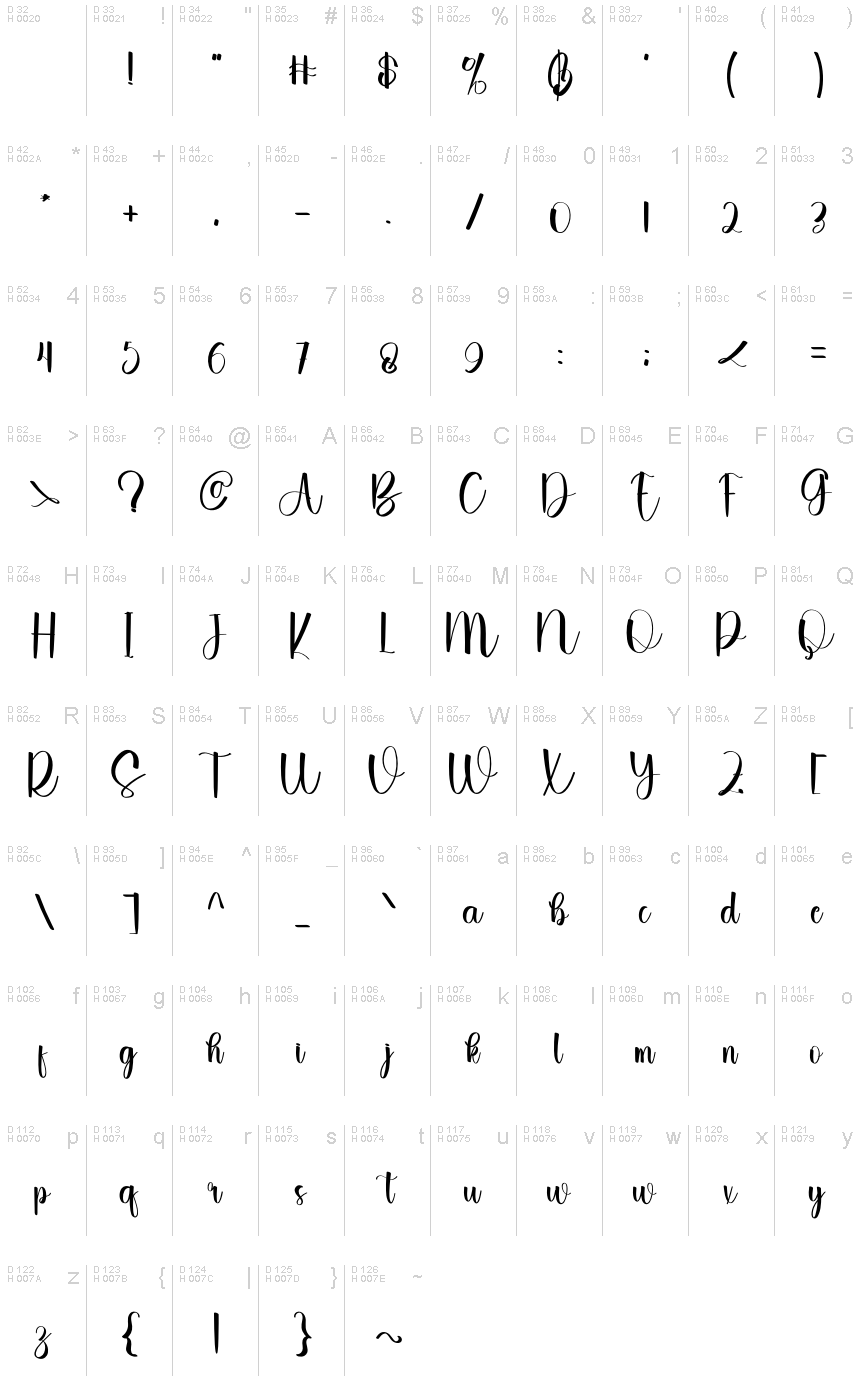
Chance
Chance font by PiPi Creative is a script style with elegant cursive, flowing lines. The informal handwriting typeface renders stylish loops, smooth curves, and gradient stroke thicknesses. Most importantly, the connected letters allow the recreation of real calligraphic flow created by free-hand usage.
Use this free font to design stationery such as invitations and greeting cards or decorate blog/Instagram images. Every web and printed format works perfectly for use on branding projects and various stylish advertising too.